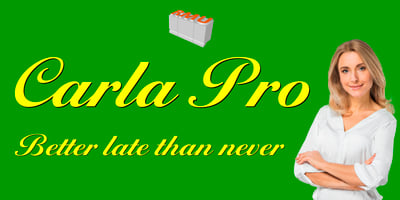
Carla Pro Font Family was designed by Ralph M. Unger and published by RMU. Carla Pro contains 1 styles and family package options. Carla Pro is a lively, legible, and partly joining broad-nib script font. I named it after a favourite colleague, in my hot-metal time, who set on the Linotype next to mine.